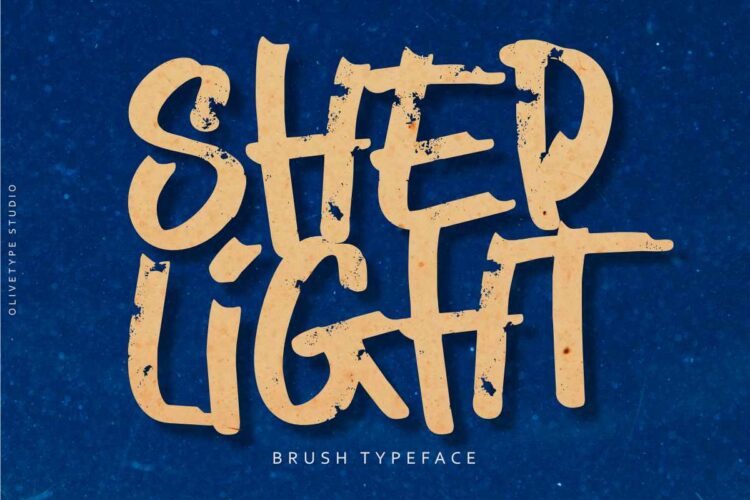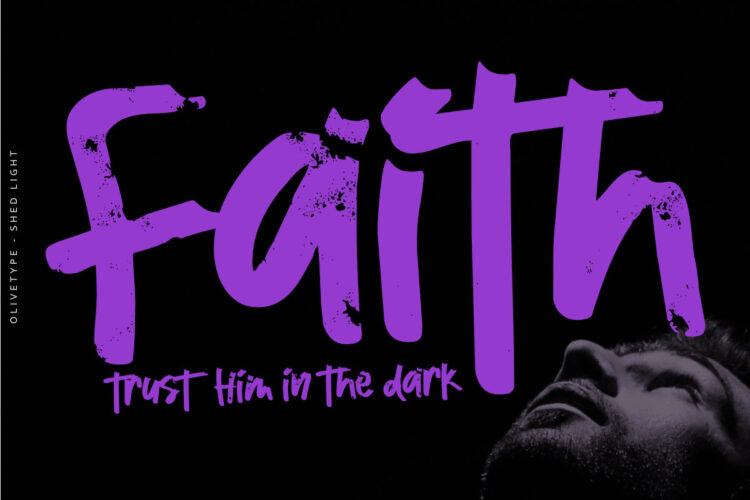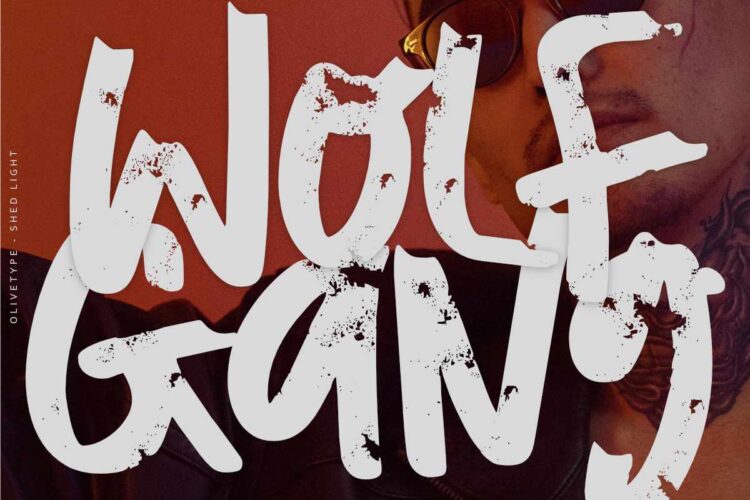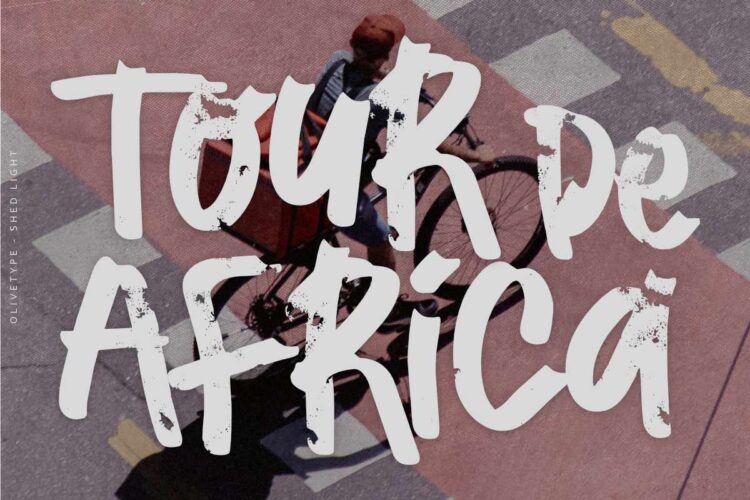
Shed Light is not your average brush font – it’s a bold and dynamic typeface that could add a touch of coolness to any design. With its unique texture, every letter seems to come to life on the page, creating an eye-catching visual experience. Whether you’re designing a poster, crafting headlines, or working on branding materials, this font is here to make your text stand out from the crowd.